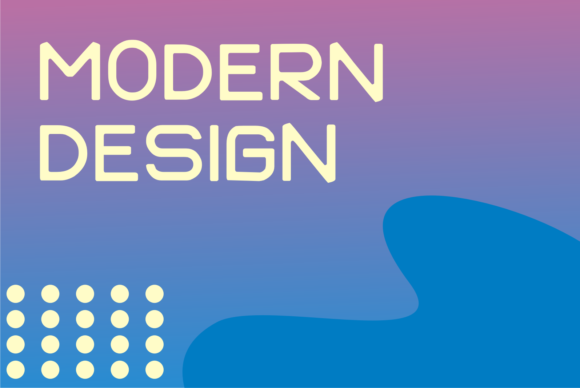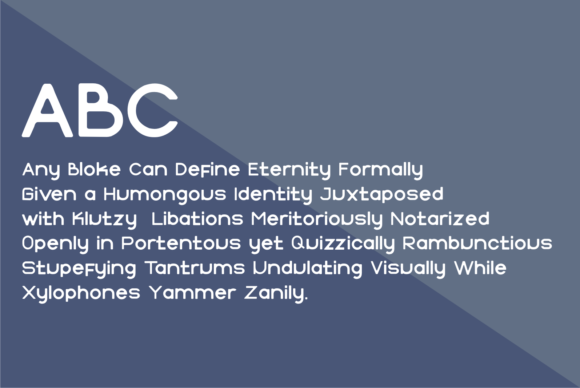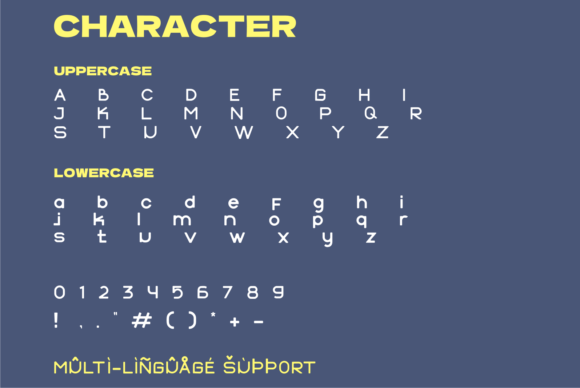
Introduction to Merta Children Font
Have you ever been working on a creative project, and you just can’t seem to find the right font to bring your design to life? You’ve tried a dozen different options, but nothing seems quite right. That’s where the Merta Children Font comes in – a cool and trendy-looking display font that’s perfect for logos, badges, clothing, posters, and other projects that need to stand out from the crowd.
With its unique style and versatility, the Merta Children Font is a valuable resource for designers looking to add some extra flair to their designs. Whether you’re working on a freelance project or just looking to spice up your personal creative endeavors, this font is sure to be a game-changer.
Key Features of Merta Children Font
• High-quality, child-friendly font design ideal for creative projects and educational materials.
• Designed with a clear and legible style, making it perfect for use in print and digital materials, such as books, posters, and presentations.
Honest Review: Merta Children Font
The Merta Children Font is a high-quality design that features a transparent background, making it easy to customize and integrate into various design projects. One of the things that works well with this font is its versatility – it can be used in a variety of contexts, from children’s books to educational materials.
• ✨ Unique and playful design that adds a touch of whimsy to any project
• ✨ Highly customizable with its transparent background
One limitation of the Merta Children Font is that it may not be suitable for all types of projects, particularly those that require a more formal or professional tone. Additionally, the font’s design can be a bit overwhelming if not used sparingly.
Overall, I’m impressed with the Merta Children Font and would definitely recommend it to designers looking for a high-quality, free design resource. Just be sure to use it thoughtfully and in contexts where its playful design will shine.
Common Use Cases for Merta Children Font
Merta Children Font is perfect for a variety of design projects, including children’s book illustrations, educational materials, and family-friendly advertisements. Its playful and modern design makes it an ideal choice for any project that requires a creative and eye-catching touch.